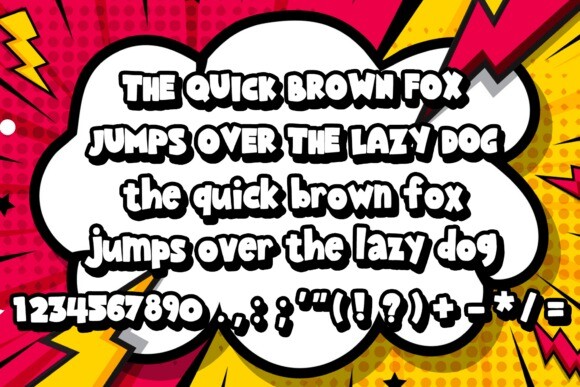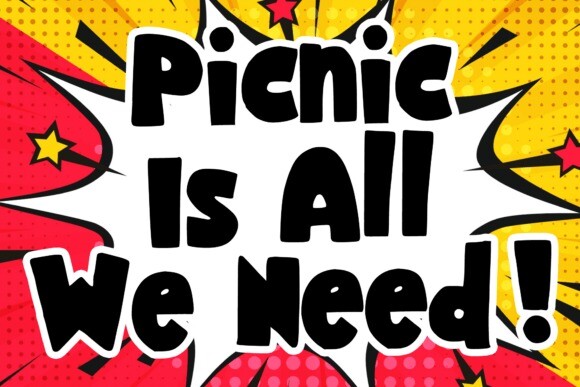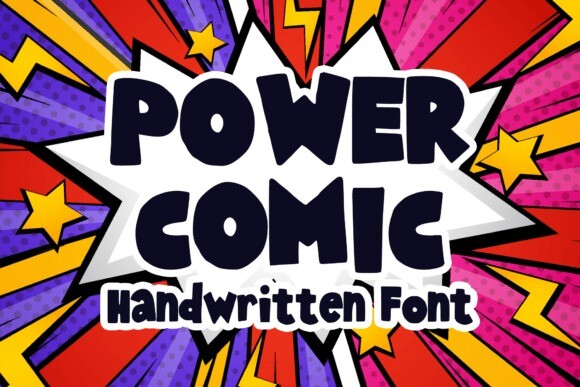
Power Comic Font
Power Comic Font is a bold fun handwritten comic font. It will elevate a wide range of design projects to the highest level. You can use this font for many design ideas such as stickers, t-shirt designs, amazing logo designs, magazine or book covers, comics, cartoon drawings, daily typing, and many more. This font will add a super cool touch to your designs!